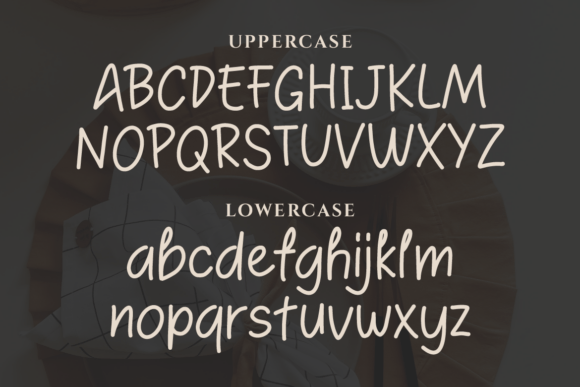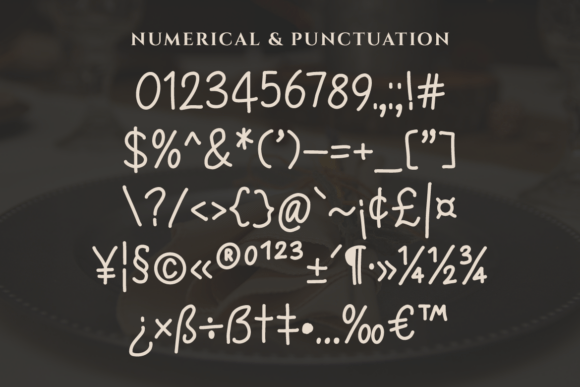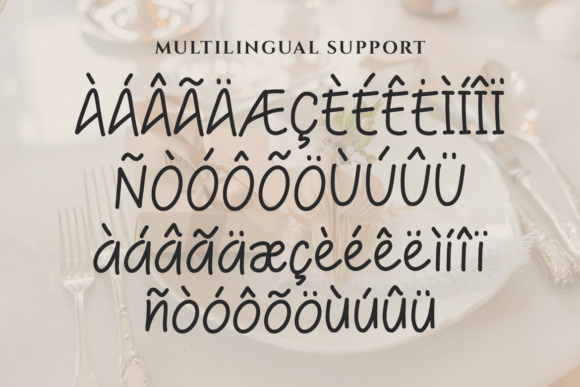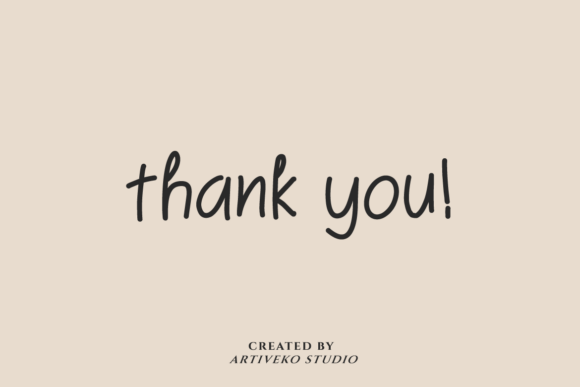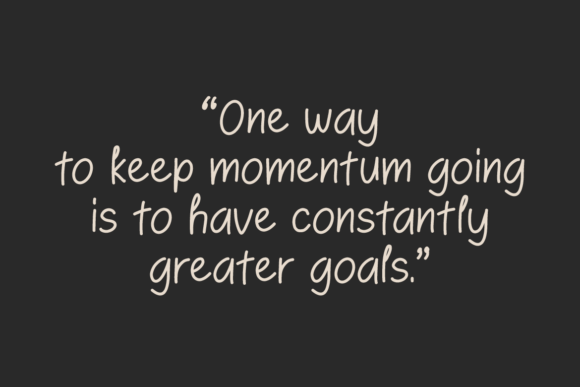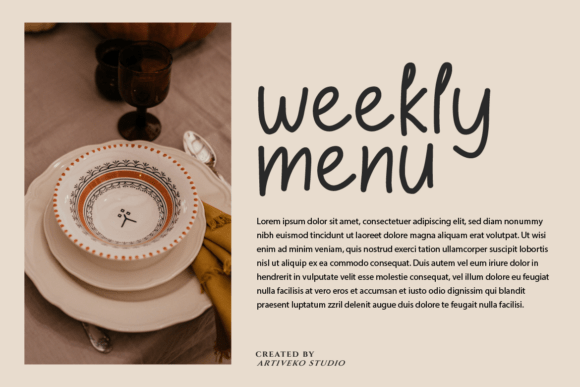
Introduction to Menary Font
Have you ever stumbled upon the perfect font while working on a creative project, and it instantly elevates your design to the next level? That’s exactly what happens when you discover the Menary Font. Its smooth curves, natural strokes, and effortless flow make it the perfect addition to any design.
As a designer, you know how crucial it is to find the right font to convey the message and tone of your project. Menary Font is a high-quality design resource that brings a personal and sophisticated touch to your designs. Whether you’re working on a branding project, wedding invitations, or product packaging, Menary Font is sure to leave a lasting impression.
Key Features of Menary Font
- High-quality, vector-based font design, ideal for creative projects
- Unique, modern design aesthetic, perfect for adding a touch of sophistication to any creative project
Honest Review: Menary Font
I recently had the chance to work with the Menary Font, a popular design resource that offers a high quality and unique font. As a designer, I’m always on the lookout for free downloads that can elevate my creative project, and Menary Font did not disappoint.
Here are some things that work well with the Menary Font:
- ✨ The font has a unique and modern design that adds a touch of sophistication to any project.
- ✨ The high quality of the font ensures that it looks great at any size, making it perfect for logos, headings, and body text.
- ✨ The transparent background option makes it easy to overlay the font on any image or background.
- ⚠️ The font may not be suitable for projects that require a lot of bold or condensed text, as it can become difficult to read.
Overall, I was impressed with the Menary Font and would recommend it to designers looking for a unique and high quality font for their creative projects.
Tips for Getting the Most Out of Menary Font
Experiment with different font sizes and styles to create visual interest. Use Menary Font in combination with other design elements to create a unique look. Take advantage of the transparent background to create layered designs.
Menary Font is perfect for creating eye-catching headlines, logos, and branding materials. It’s also great for use in social media graphics, presentations, and reports. Its high-quality design makes it a valuable resource for any creative project.